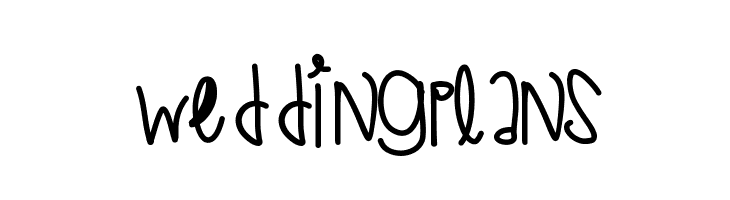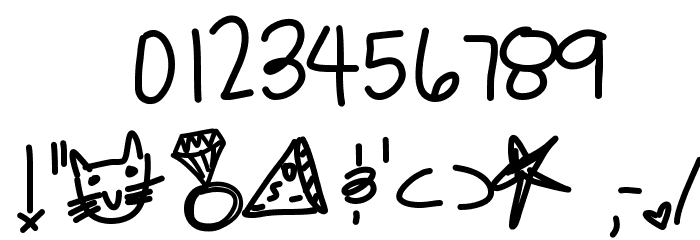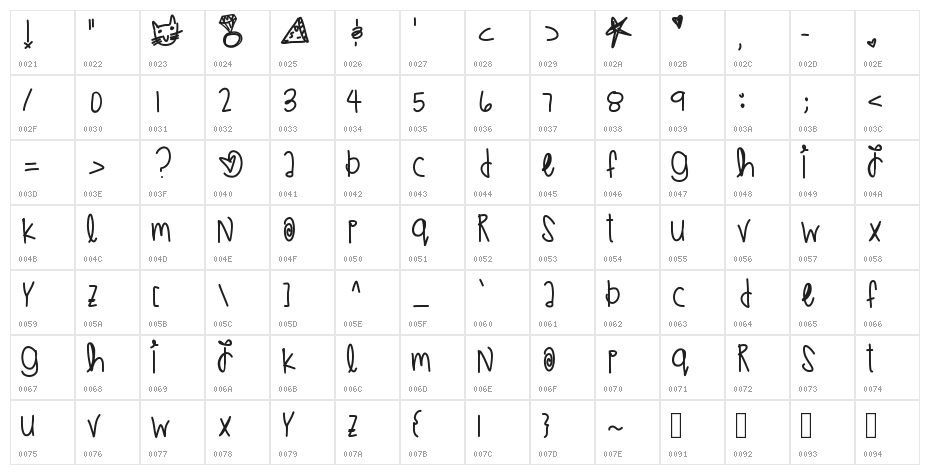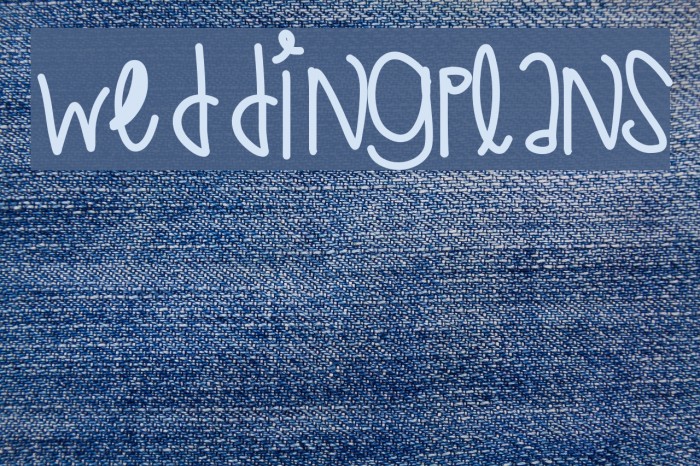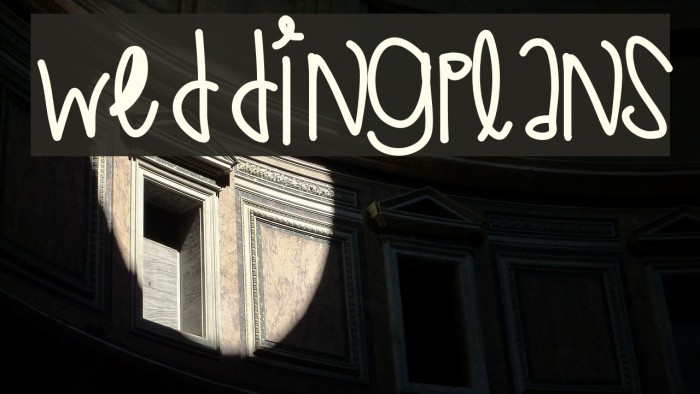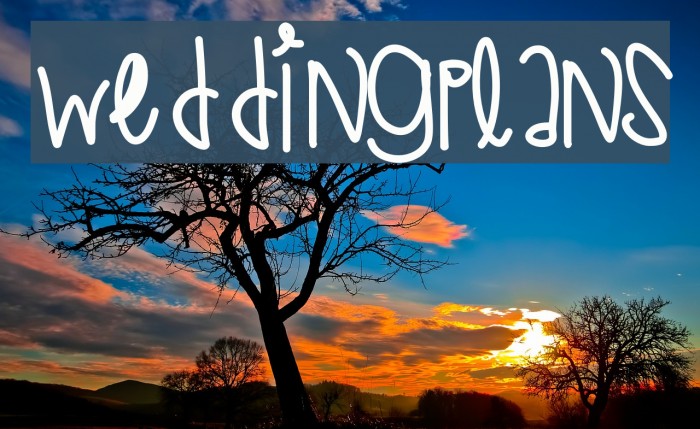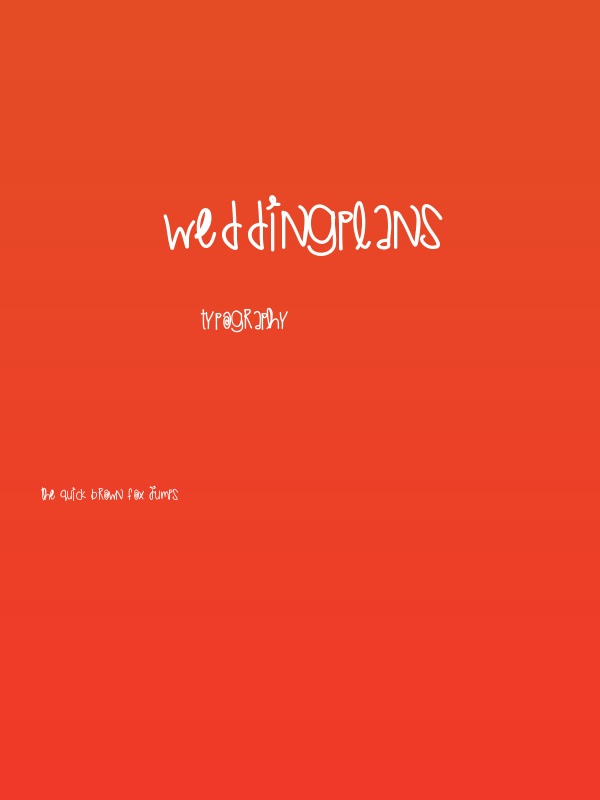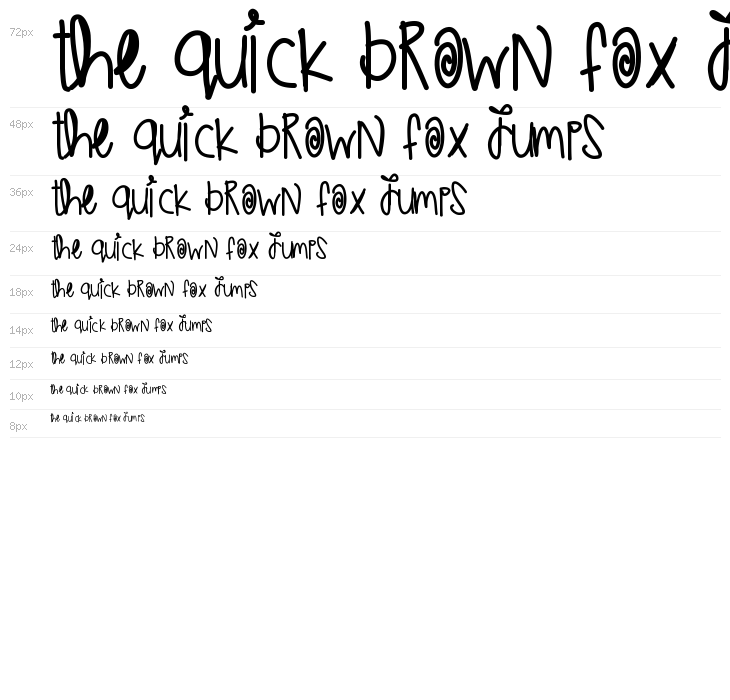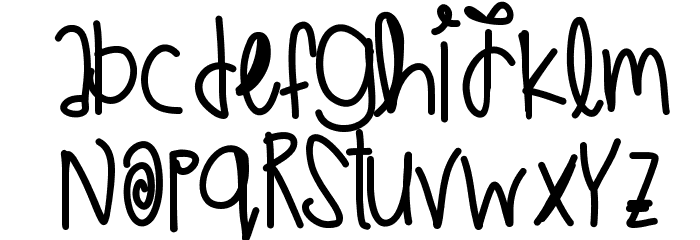
WeddingPlans Font
WeddingPlans Description
This font exudes a playful and whimsical charm, characterized by its handwritten style with a casual, flowing appearance. The letters are slightly irregular, adding a personal touch that feels both approachable and friendly. The uppercase and lowercase letters maintain a consistent style, with rounded edges and a slight tilt, enhancing the informal vibe. Numbers and special characters are equally playful, with unique designs that complement the overall aesthetic. This font is perfect for projects that require a touch of creativity and fun, such as invitations, greeting cards, or children's book covers.
| Overall Style | Whimsical |
| Use Case | Invitations, Greeting cards, Children's books |
| Proposed Projects | Ideal for wedding invitations, greeting cards, children's books, and playful branding. |